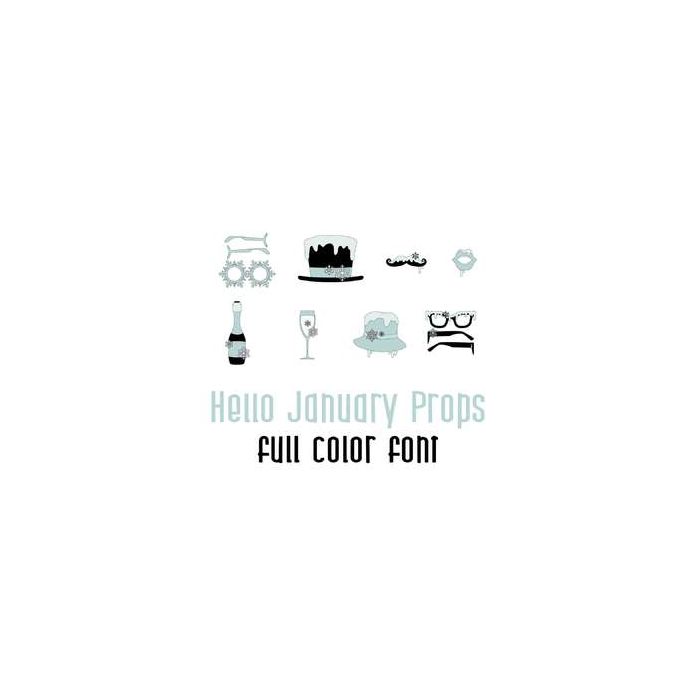
This adorable full color doodlebat font features fun winter and snow themed photo props with New Years elements. Perfect for cards, crafts, gifts, decor, scrap book pages, planner stickers and more!